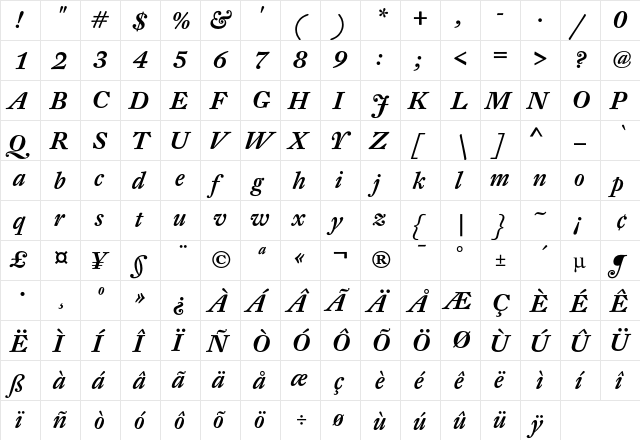
DTLFleischmannT MediumItalic Font Preview
DTLFleischmannT MediumItalic
Design Context for DTLFleischmannT Typeface
DTLFleischmannT takes a measured approach to typography — its balanced proportions and neutral character make it a reliable workhorse for both digital and print work. The dynamic lean of this cut emphasises speed and emphasis in any layout.
Pro Tip: Try DTLFleischmannT for annotation and caption copy alongside an upright companion — the contrast in angle creates a dynamic but ordered typographic system.